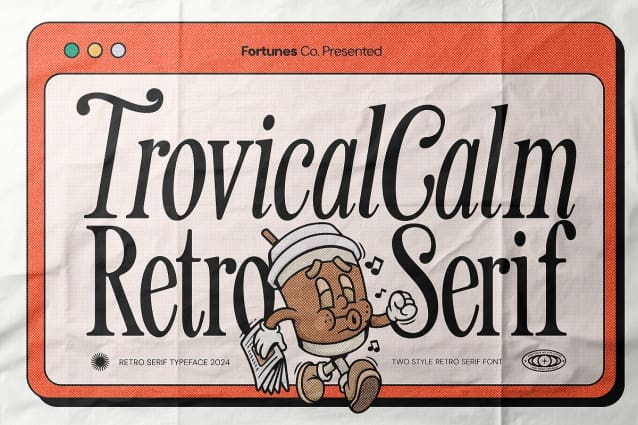
Trovical Calm Font
Trovical Calm Font – a retro-themed advertising serif font that strikes the perfect balance between modern minimalism and classic charm. Its streamlined design enhances readability and exudes a timeless feel. In advertising, the focus is on bold, impactful messaging rather than decorative serifs. With retro-inspired color schemes and design elements, this font looks like a mid-century poster. From branding to event advertising, it conveys the sleek, no-frills approach of classic commercial design.